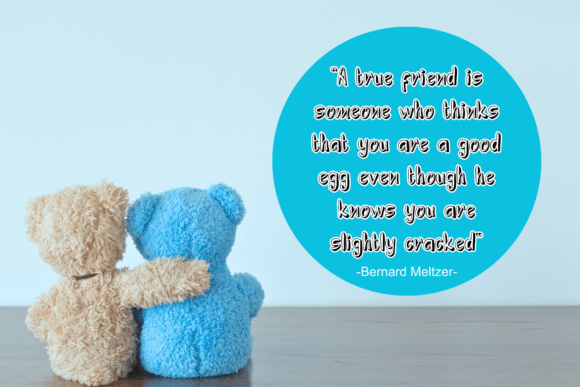
Bear Brown Font: Unleashing the Power of Charismatic Charm in Typography
In the vast and ever-evolving world of typography, fonts play a pivotal role in shaping the visual identity of any creative project. Among the myriad of fonts available, Bear Brown Font stands out for its unique blend of style, charm, and versatility. This article aims to provide an in-depth exploration of Bear Brown Font, delving into its characteristics, uses, and the creative possibilities it offers.
The Essence of Bear Brown Font
Bear Brown Font is a stylish display font that exudes a charismatic charm, making it an invaluable addition to any font arsenal. Its design is a perfect amalgamation of funkiness and coolness, catering to a wide range of themes and artistic endeavors. Whether you’re working on a branding project, a website, or a print design, Bear Brown Font promises to elevate your creative output with its dynamic and versatile design.
Key Features of Bear Brown Font
- Versatility: One of the standout features of Bear Brown Font is its versatility. It can seamlessly adapt to various design themes, from modern and minimalist to vintage and eclectic.
- Dynamic Design: The font’s dynamic design is crafted to push the boundaries of creativity. Its unique letterforms and stylish curves make it an eye-catching choice for any project.
- Charismatic Charm: Bear Brown Font possesses a certain charm that can make your designs more engaging and memorable. Its charismatic appeal can add a touch of personality to your work.
- Easy to Read: Despite its stylized appearance, Bear Brown Font maintains a high level of readability, making it suitable for both display and short text content.
Applications of Bear Brown Font
The versatility of Bear Brown Font makes it applicable in a variety of design contexts. Here are some of the key areas where this font can make a significant impact:
- Branding and Logo Design: The unique and charismatic design of Bear Brown Font makes it an excellent choice for branding and logo design. It can help create a memorable and distinctive brand identity.
- Web Design: For web designers, Bear Brown Font can be used to create visually appealing headings, titles, and even short paragraphs of text. Its readability ensures a good user experience.
- Print Design: Whether you’re working on posters, flyers, brochures, or business cards, Bear Brown Font can add a touch of style and sophistication to your print materials.
- Social Media Graphics: In the realm of social media, Bear Brown Font can help make your graphics stand out. It’s perfect for creating eye-catching posts, stories, and banners.
Tips for Using Bear Brown Font Effectively
To maximize the potential of Bear Brown Font, consider the following tips:
- Pair it with Complementary Fonts: Bear Brown Font works well when paired with simpler fonts. Choose fonts that complement its dynamic style without overpowering it.
- Adjust Font Sizes: For optimal readability, use Bear Brown Font in larger sizes for headings and titles, and opt for a simpler font in smaller sizes for body text.
- Experiment with Colors: Don’t be afraid to experiment with different colors. Bear Brown Font can look great in bold and vibrant colors, as well as more subdued tones.
- Maintain Readability: While using Bear Brown Font for longer texts, ensure that it remains readable. You may need to adjust the font size or style based on the content’s length.
The Creative Possibilities with Bear Brown Font
Bear Brown Font is not just a typeface; it’s a creative tool that can significantly enhance your design projects. Its ability to blend funkiness with coolness makes it a versatile choice for designers looking to push the creative envelope.
- Artistic Projects: For artists and creatives, Bear Brown Font can serve as a source of inspiration. It can be used in art prints, exhibitions, and installations to add a textual element.
- Advertising and Marketing: In advertising and marketing, capturing the audience’s attention is crucial. Bear Brown Font, with its charismatic charm, can help create compelling ad copy and promotional materials.
- Educational Materials: Bear Brown Font can also be used in educational materials to make learning more engaging. Its readability and charm can make textbooks, workbooks, and educational posters more appealing to students.
Bear Brown Font is a stylish display font that brings a unique blend of charisma, charm, and versatility to the world of typography. Its dynamic design and adaptability make it an invaluable tool for designers across various creative projects. By understanding its features, applications, and tips for effective use, designers can unlock the full potential of Bear Brown Font and elevate their artistic endeavors to new heights.
FAQs about Bear Brown Font
- What makes Bear Brown Font unique?
- Bear Brown Font is unique due to its blend of funkiness and coolness, along with its charismatic charm and versatility.
- Can Bear Brown Font be used for body text?
- While Bear Brown Font can be used for short paragraphs, it’s primarily designed as a display font. For longer texts, it’s recommended to use a simpler, more readable font.
- Is Bear Brown Font suitable for branding?
- Yes, Bear Brown Font is highly suitable for branding and logo design due to its distinctive and memorable appearance.
- Can I use Bear Brown Font for web design?
- Absolutely. Bear Brown Font can enhance web design with its stylish headings and titles, improving the visual appeal of a website.